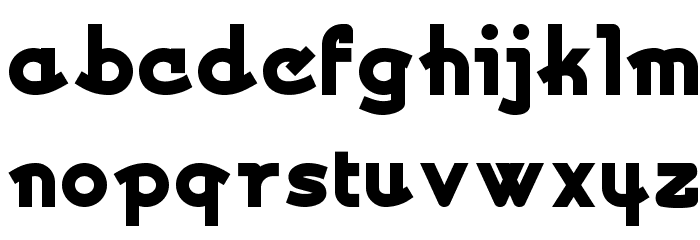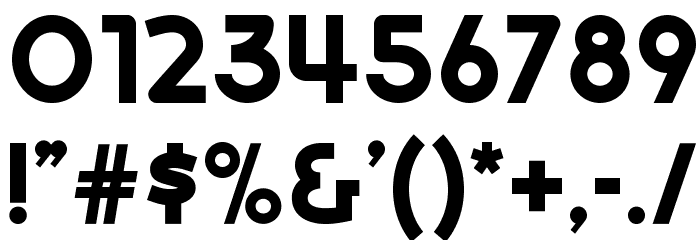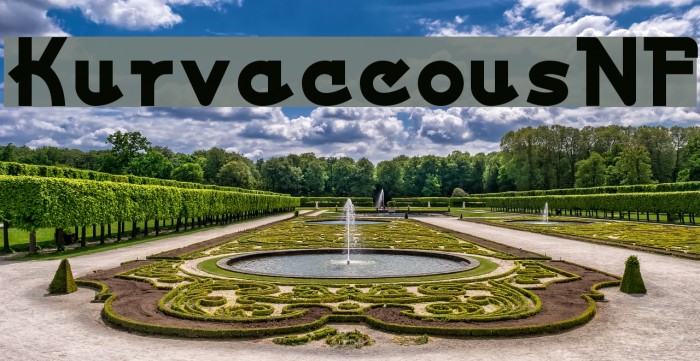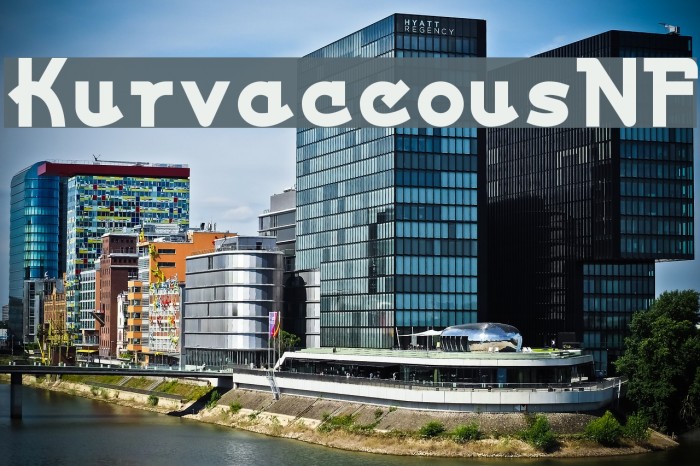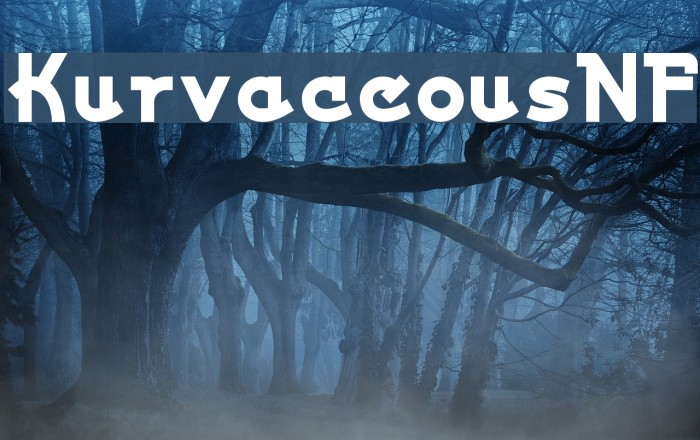
KurvaceousNF Font
This font features a bold and playful design with a unique blend of curves and sharp edges. The uppercase letters are characterized by their thick strokes and rounded forms, giving them a friendly and approachable appearance. The lowercase letters maintain this playful style, with some characters exhibiting distinctive loops and swirls that add to the font's charm. The numerals are bold and consistent with the overall style, ensuring readability while maintaining the font's whimsical nature. Special characters are well-integrated, offering a cohesive look across all glyphs. This font's design is ideal for projects that require a touch of fun and creativity, making it suitable for a variety of applications.
A bold, playful font with curvy and sharp elements, perfect for creative projects.
- Proposed Projects: Ideal for children's books, playful branding, creative posters, and whimsical invitations.
- Overall Style: Playful, Whimsical